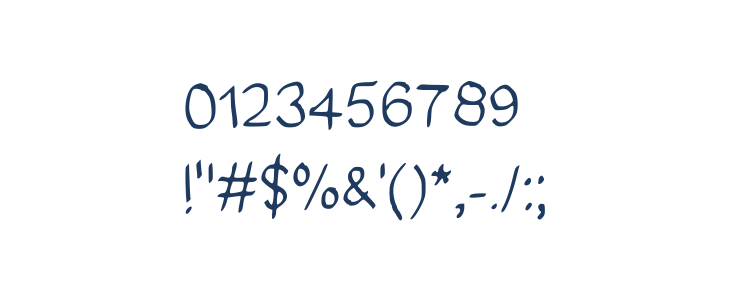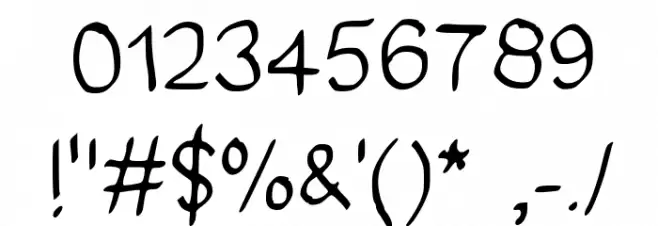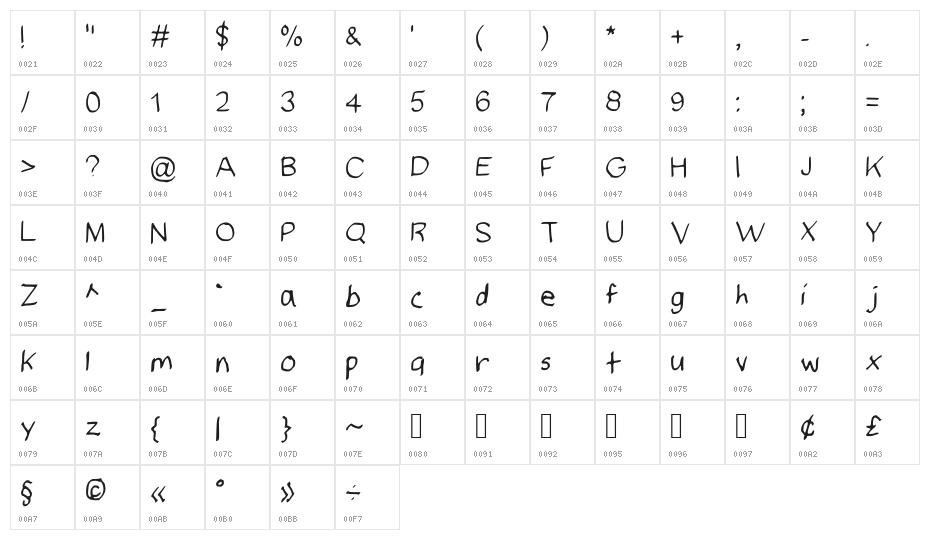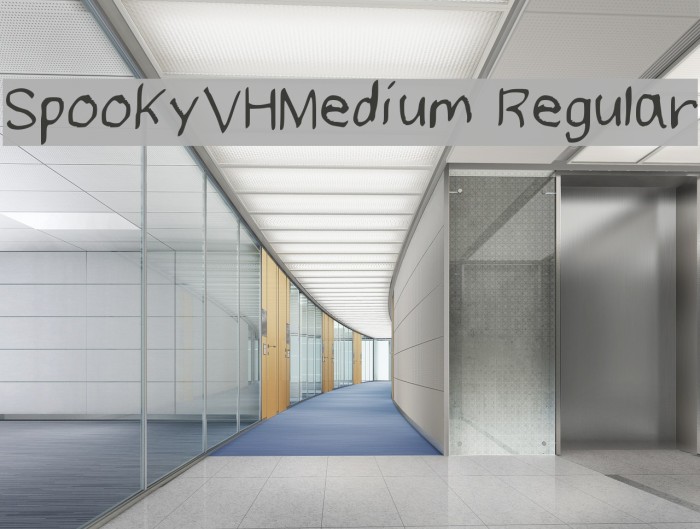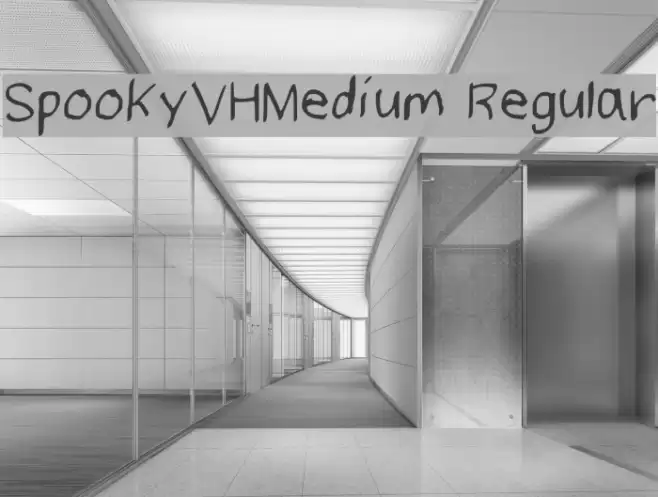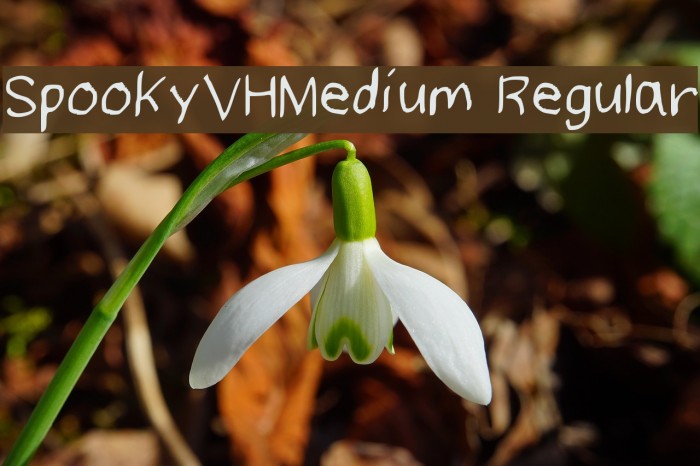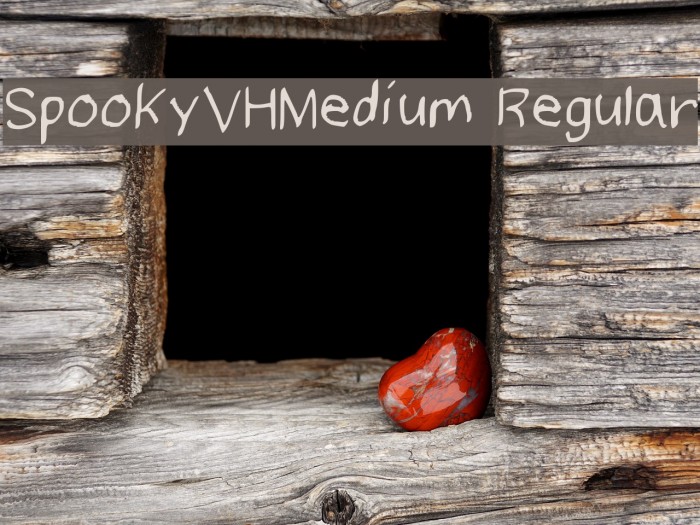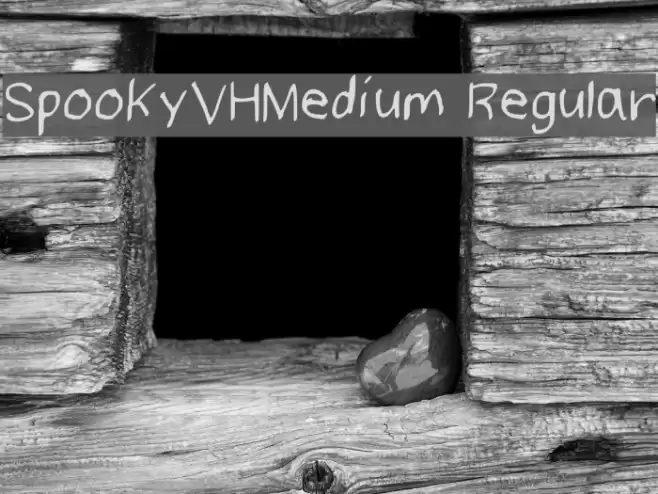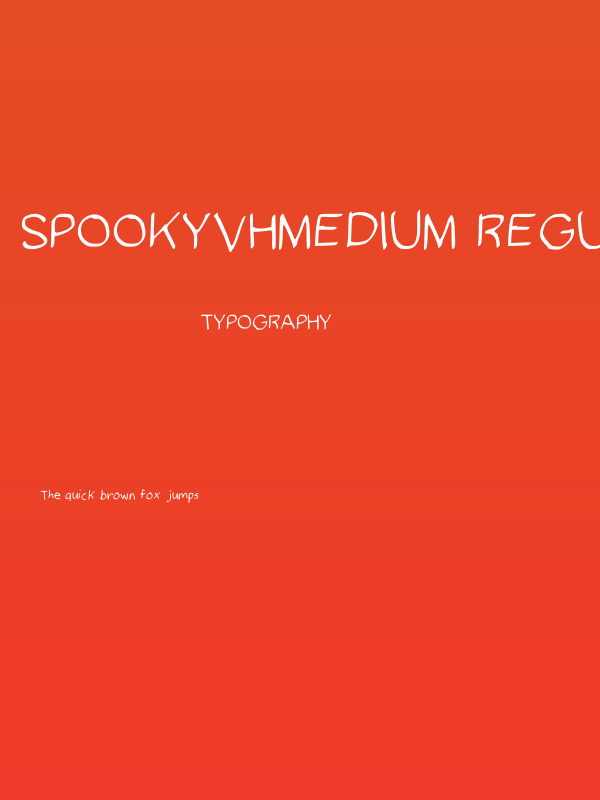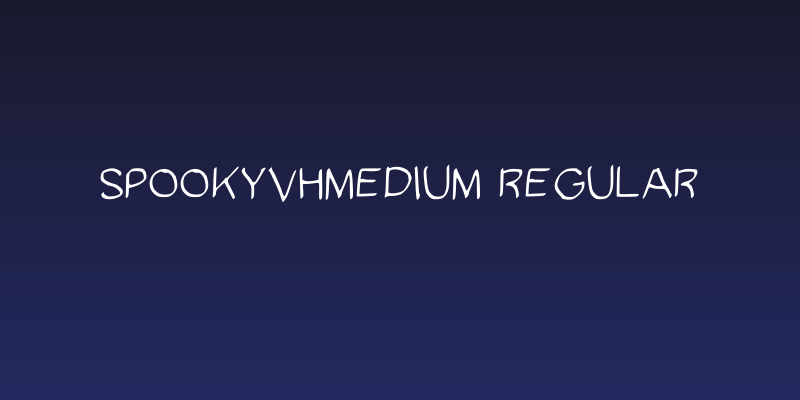
SpookyVHMedium Regular Font
SpookyVHMedium Regular Description
This font features a playful and slightly eerie design, characterized by its irregular and hand-drawn appearance. The letters have a whimsical, uneven stroke that gives them a spooky yet approachable feel, making it ideal for Halloween-themed projects or anything requiring a touch of the supernatural. The uppercase and lowercase letters maintain a consistent style, with rounded edges and varying line thickness that adds to the font's charm. Numbers and special characters are included, matching the overall quirky aesthetic.
| Proposed Projects | Ideal for Halloween invitations, themed posters, children's book titles, and creative branding. |